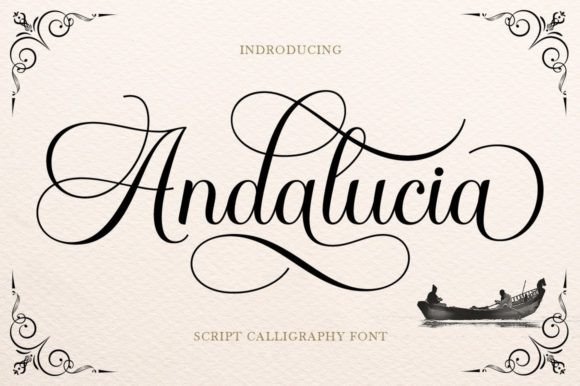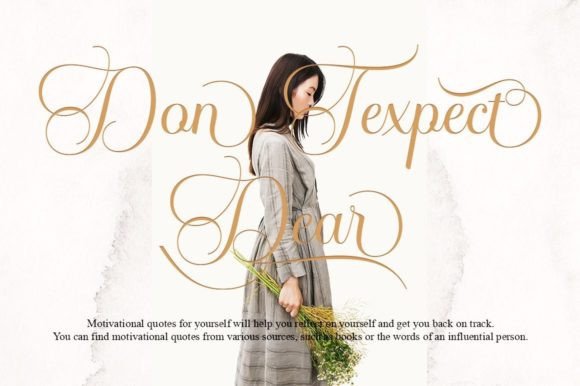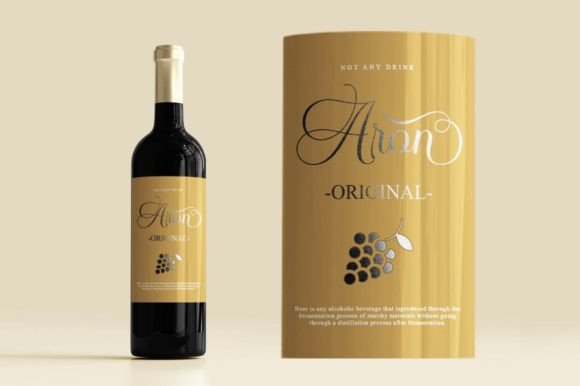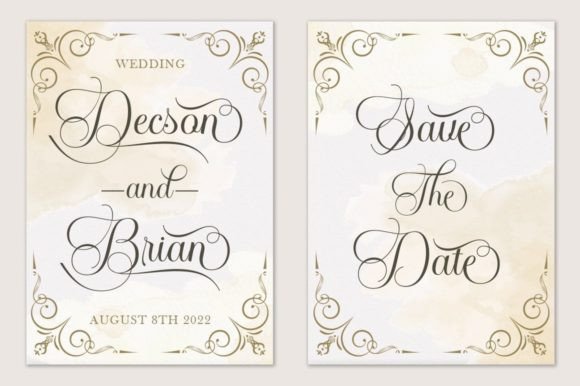
Andalucia Font: Elegant Calligraphy Script for Wedding & Logo Design
About the Andalucia Font
Crafted with precision, the Andalucia Font is ready to bring your ideas to life. Andalucia is a calligraphic script font that comes with beautiful alternate characters. Copperplate calligraphy mixed with hand lettering style, designed to convey stylish elegance. Andalucia is attractive because it is subtle, clean, feminine, sensual, glamorous, simple, and very easy to read.
The classic style is very suitable to be applied in all types of formal work such as invitations, labels, menus, logos, fashion, make-up, stationery, letterpress, romantic novels, magazines, books, greeting/wedding cards, packaging, and labels.
Andalucia Font Usage Examples
Andalucia Font Example